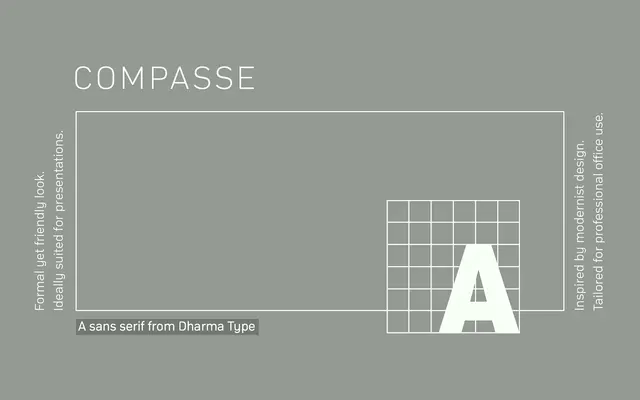
Compasse
A semi-condensed geometric sans in six weights with italics, built on a semi-modular approach that tempers rigidity with the designer's intuition.
Ryoichi Tsunekawa's Compasse covers six weights from Thin to ExtraBold, each with a matching italic, giving twelve styles in total. Its semi-condensed proportions and large x-height support use across titles, headlines and body text without sacrificing legibility at smaller sizes. The semi-modular construction keeps letterforms feeling balanced rather than mechanical, and broad European language coverage including Western, Central and South Eastern European scripts makes it viable for multilingual editorial and corporate work.
Described as semi-modular with a neutral, universal character; the controlled geometry and semi-condensed proportions place it in the geometric sans tradition, softened by humanist intuition.